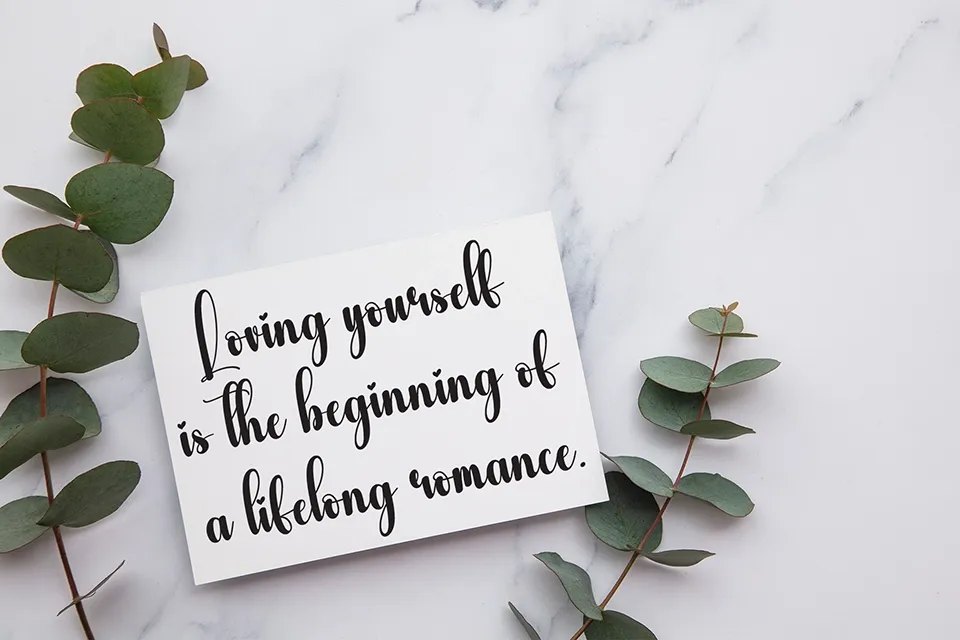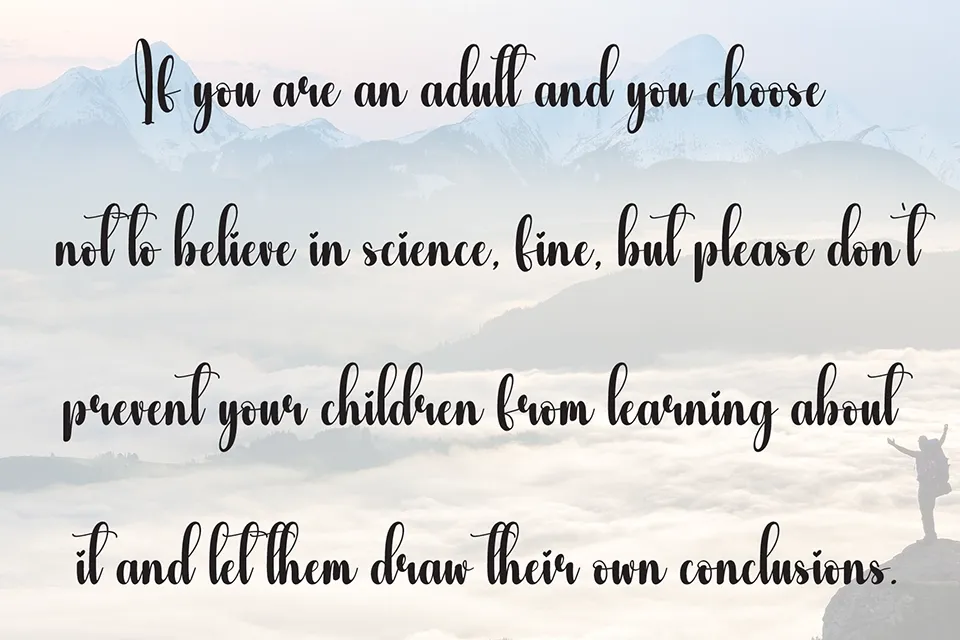
Gingerbread Script Font
Gingerbread Script Font is a stylish and neat handwritten script font that exudes sophistication and charm. With its flowing lines, balanced strokes, and modern elegance, this typeface is perfect for invitations, branding, logos, and any project that needs a touch of creativity and warmth.